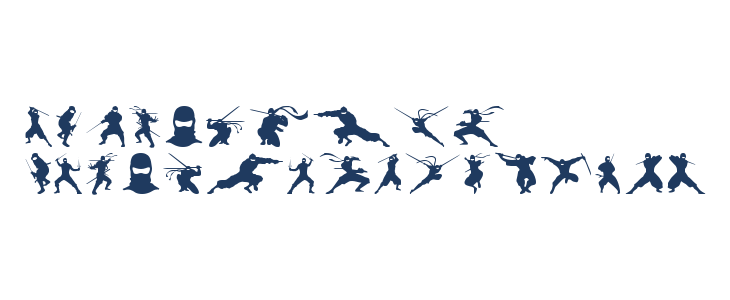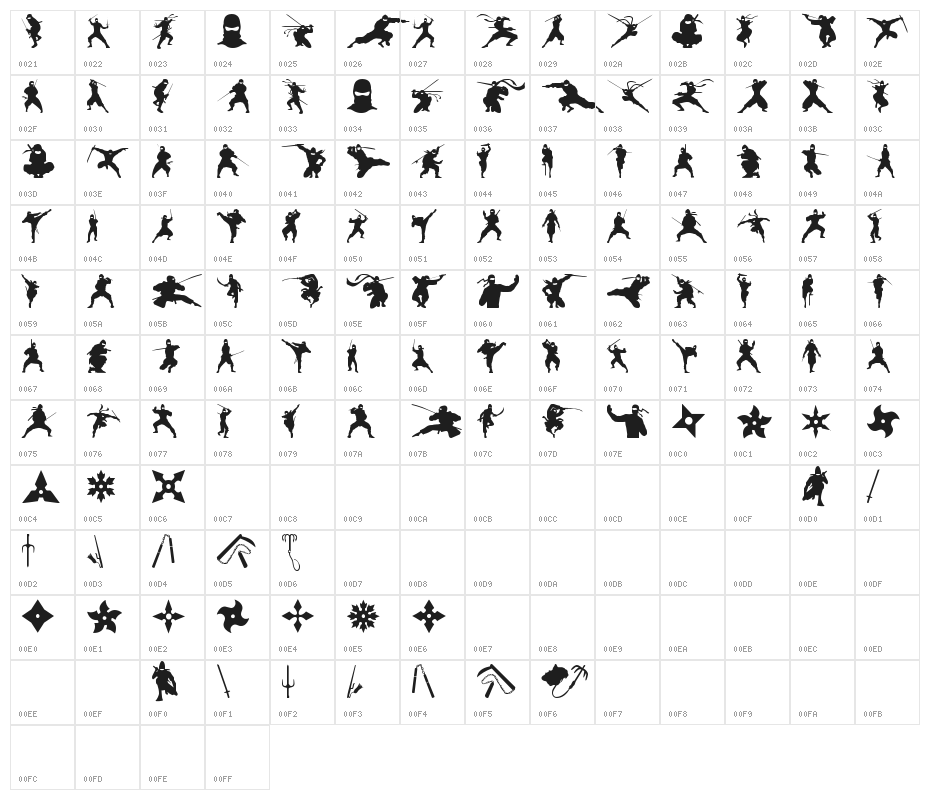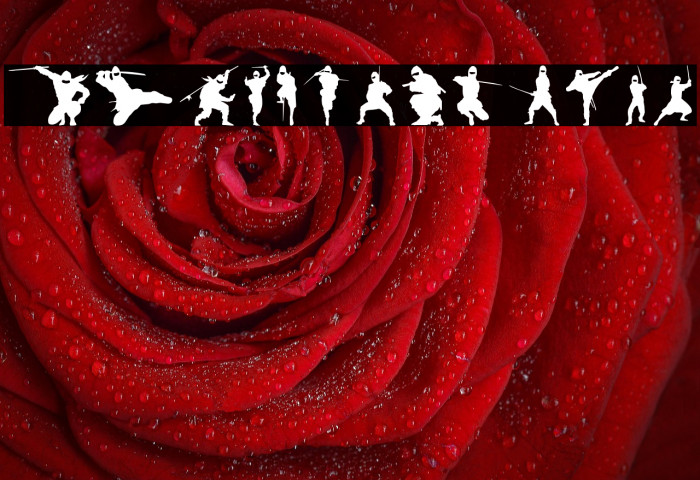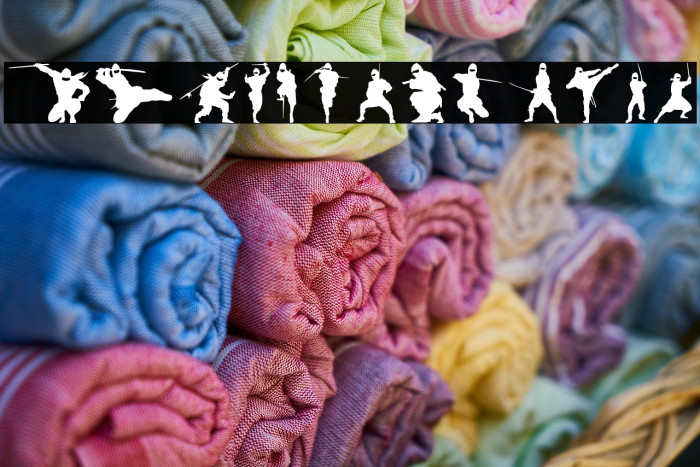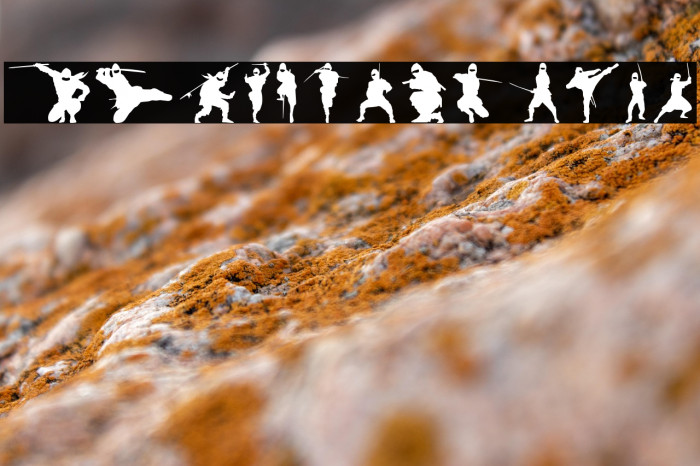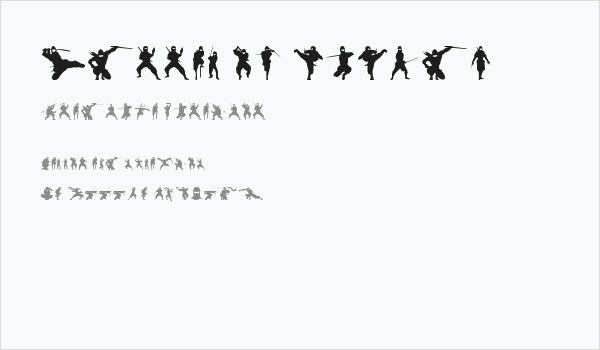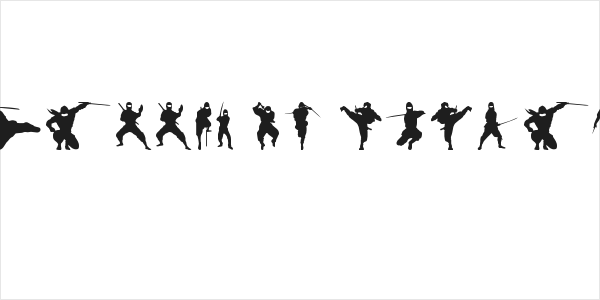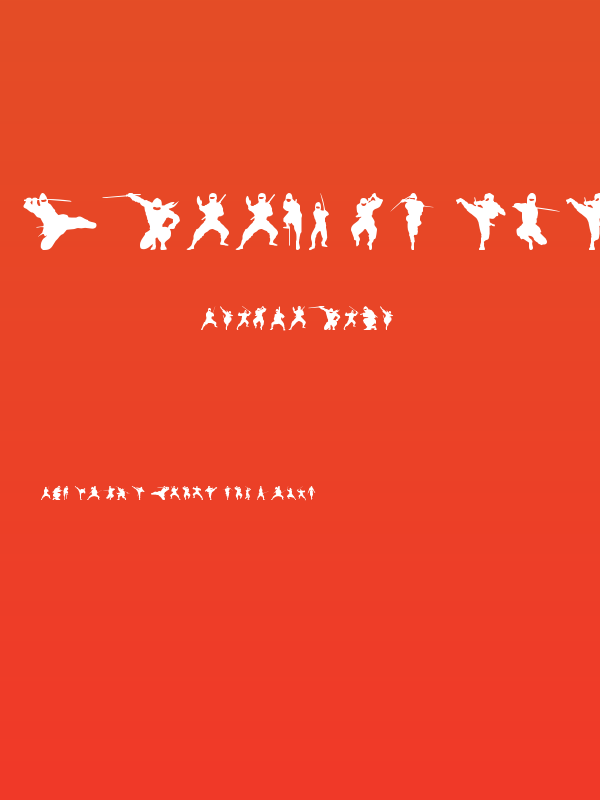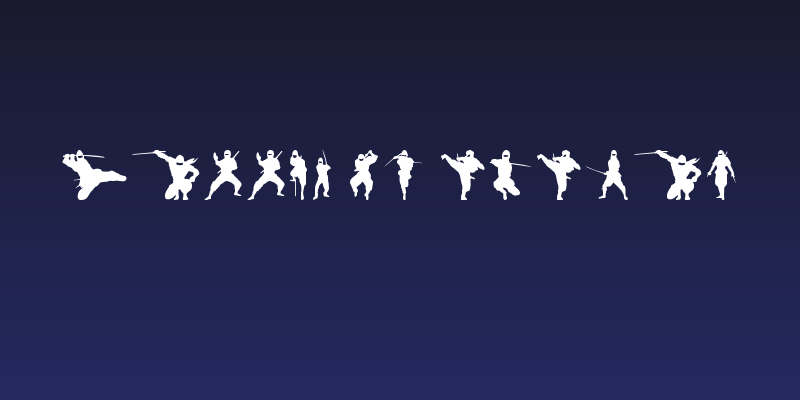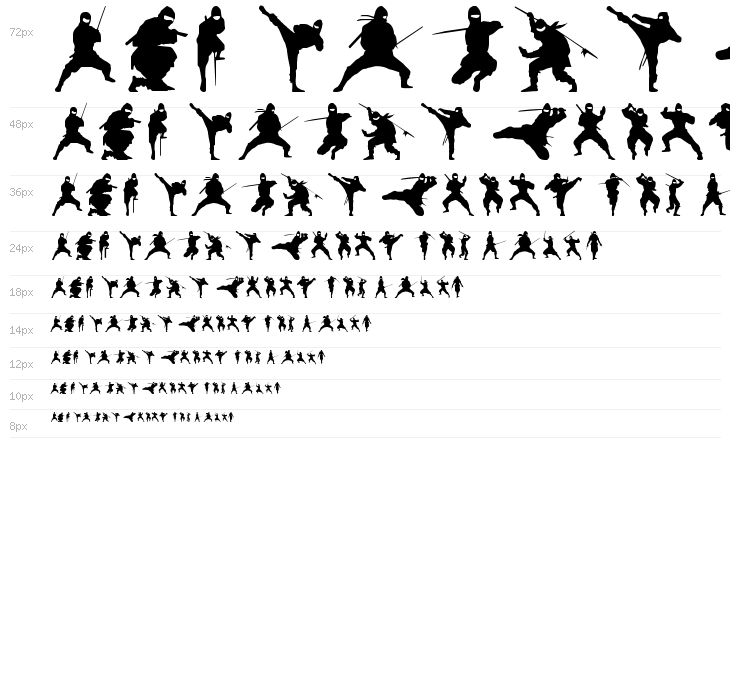
Barrel of Ninjas Font
Barrel of Ninjas Description
A decorative display font composed of dynamic ninja silhouettes in various action poses, each character represented by a unique ninja figure or stance, emphasizing movement and martial arts themes.
| Overall Style | Decorative, Thematic, Playful |
| Use Case | Headlines, Posters, Logos, Themed Graphics |
| Proposed Projects | Martial arts event posters, comic book titles, themed party invitations, video game graphics, children's activity sheets. |